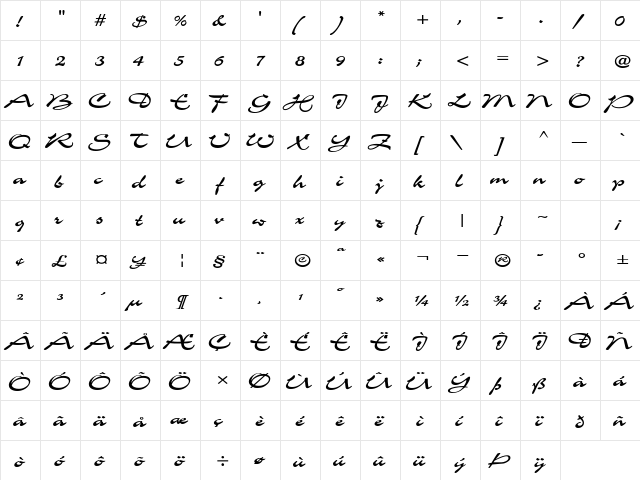
Scheherezade Bold
Design Context for Scheherezade Typeface
Scheherezade is a composed and adaptable typeface that performs quietly and consistently across a wide range of design contexts. The heavy weight commands attention and anchors typographic hierarchies.
Pro Tip: Pair Scheherezade with a font of contrasting weight or personality to build a more expressive typographic hierarchy.